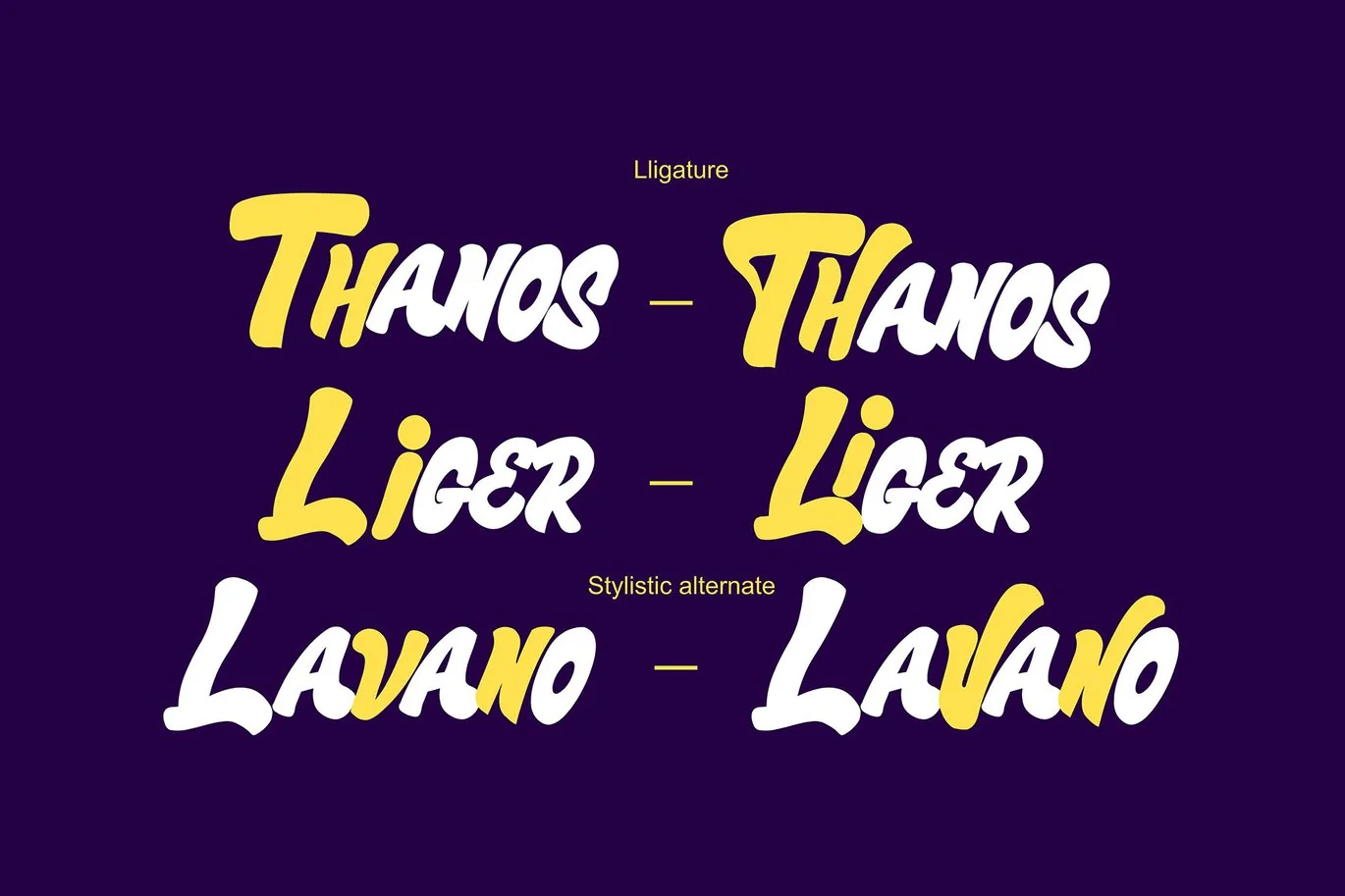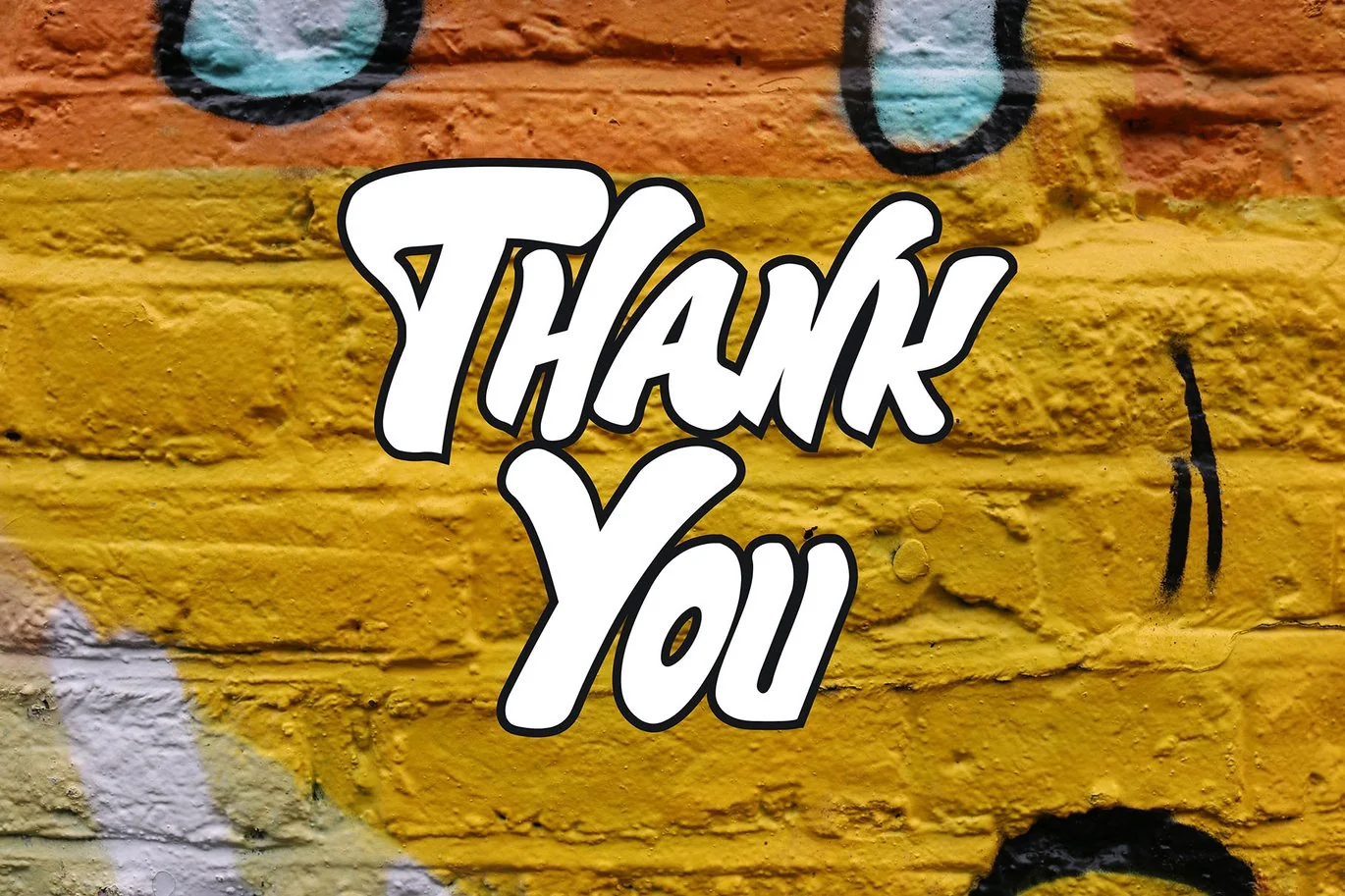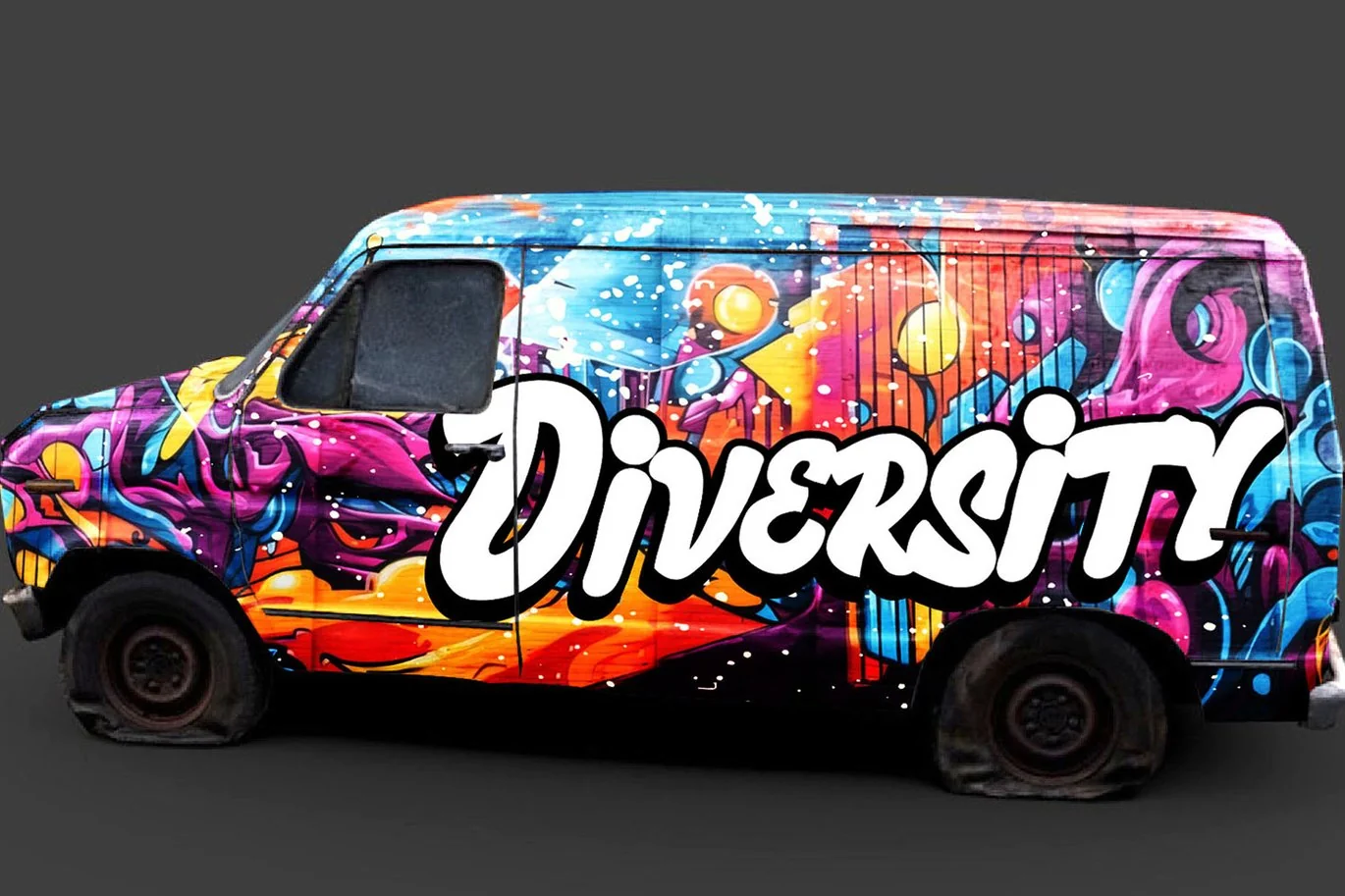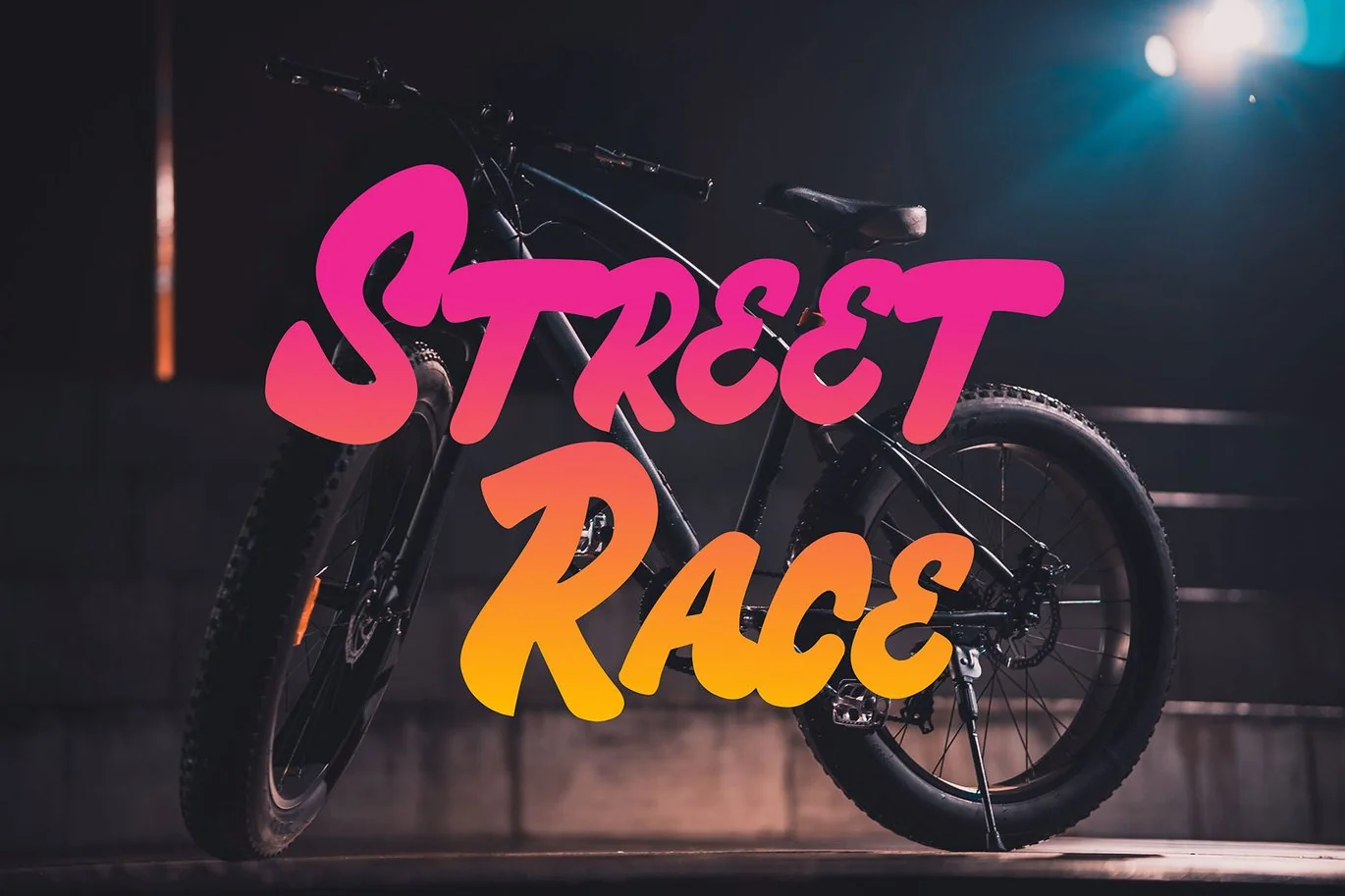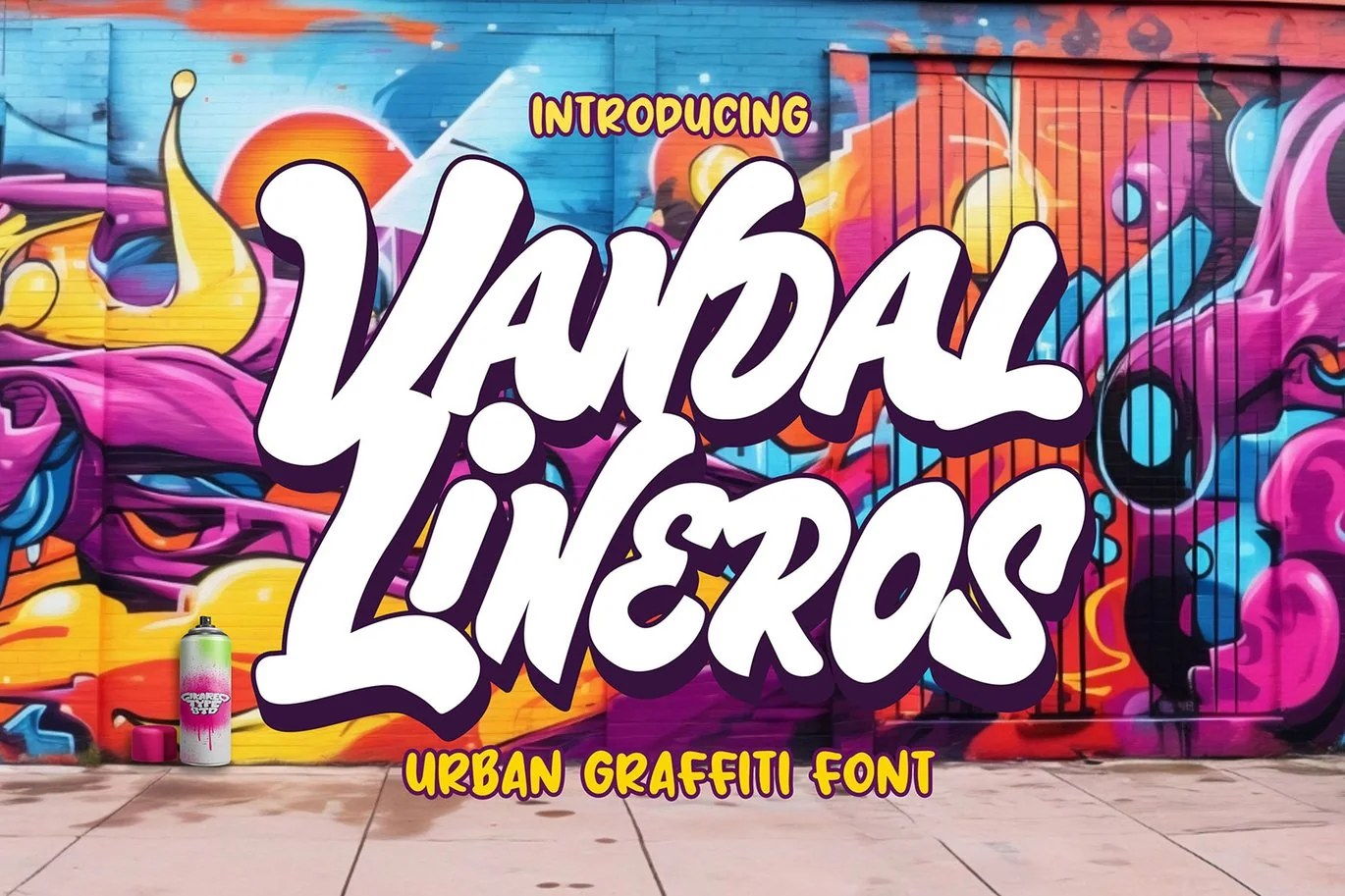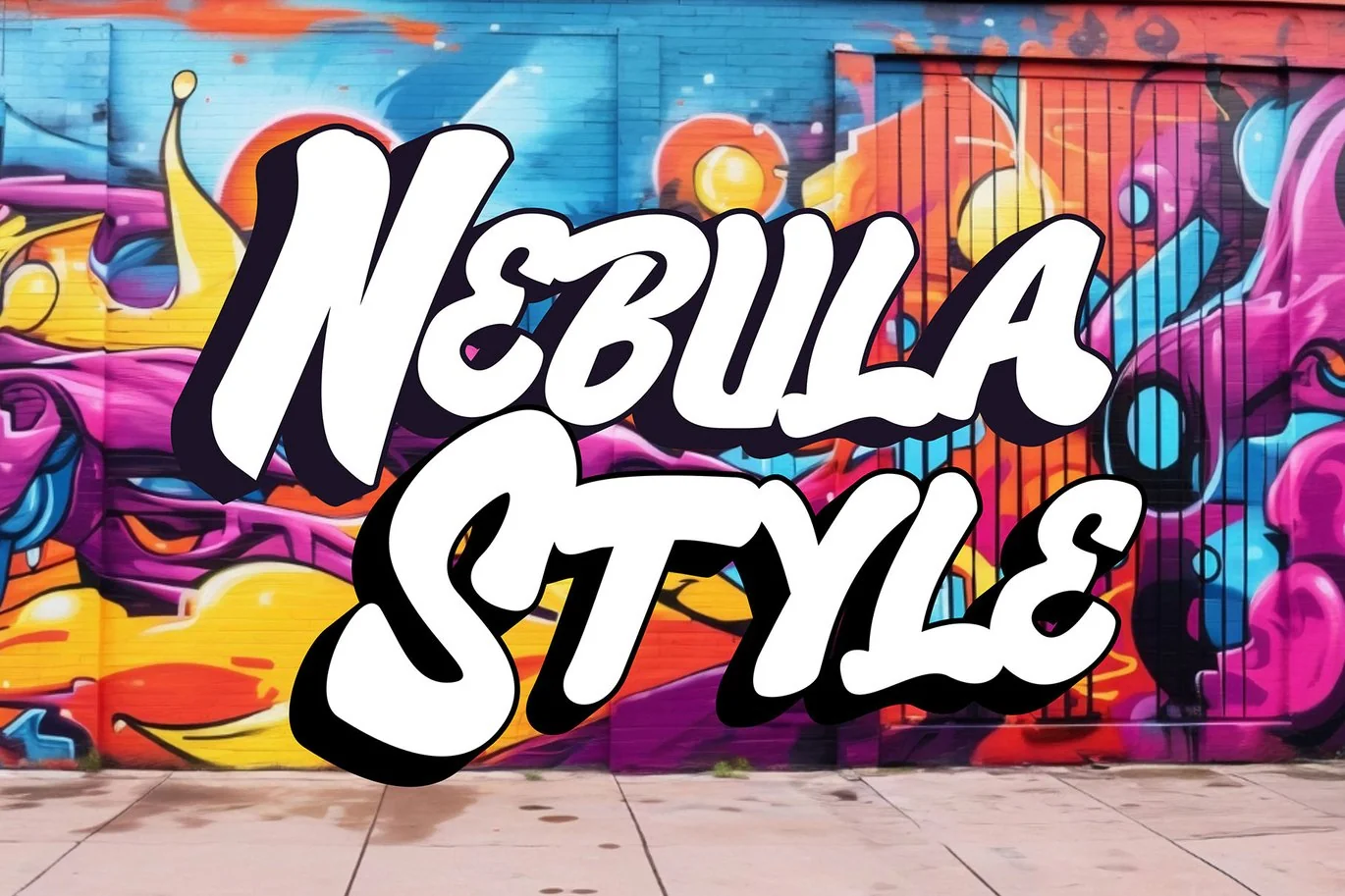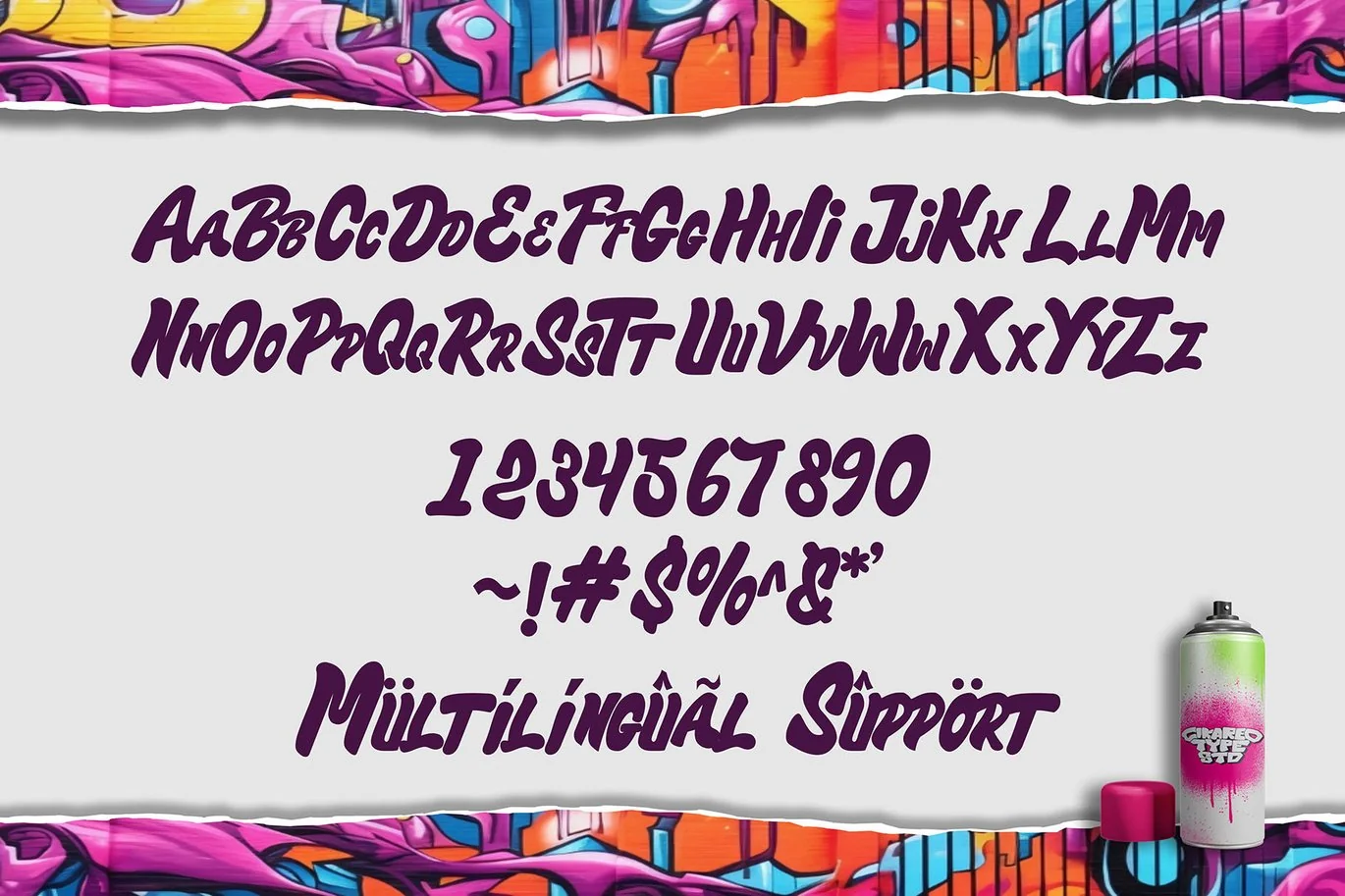
Vandal Lineros – Urban Graffiti Font
The Vandal Lineros Urban Graffiti Font is a dynamic and edgy typeface that encapsulates the spirit of street art. With its irregular, hand-painted style, it brings a raw and rebellious energy to design projects. Perfect for adding a touch of urban authenticity and boldness to your work, this font is an ideal choice for posters, album covers, branding, and any project where you want to make a memorable statement. Express your creativity and embrace the chaos with Vandal Lineros.